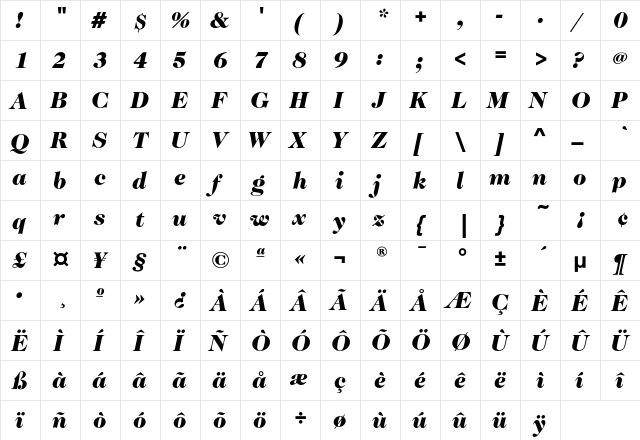
CaslonNo224EF-BlackItalic Regular Font Preview
CaslonNo224EF-BlackItalic Regular
Design Context for CaslonNo224EF-BlackItalic Typeface
CaslonNo224EF-BlackItalic offers clean, dependable letterforms without strong stylistic allegiance, making it a practical choice for designers who need flexibility. The slanted form adds forward momentum and visual energy.
Pro Tip: Use CaslonNo224EF-BlackItalic for emphasis, pull quotes, and subheadings where its slanted energy can add rhythm to the layout.